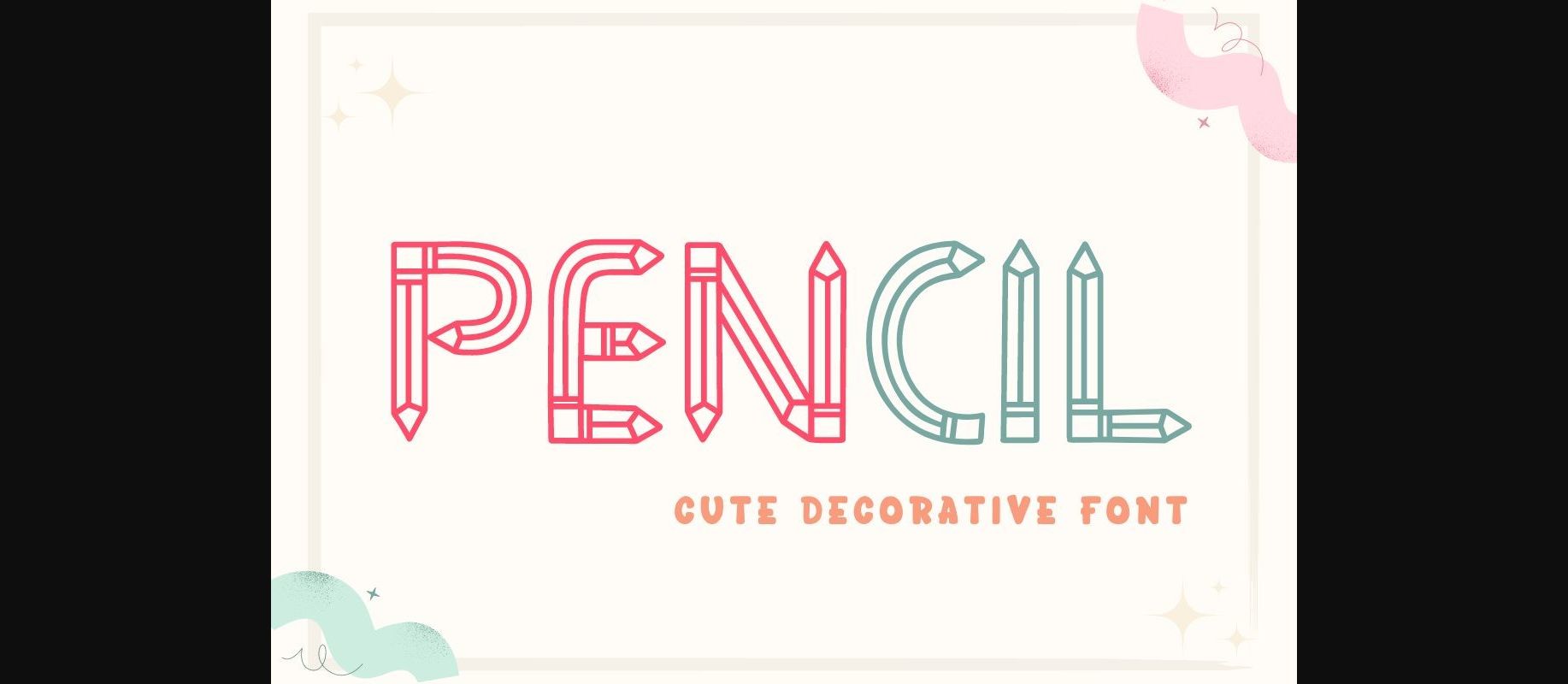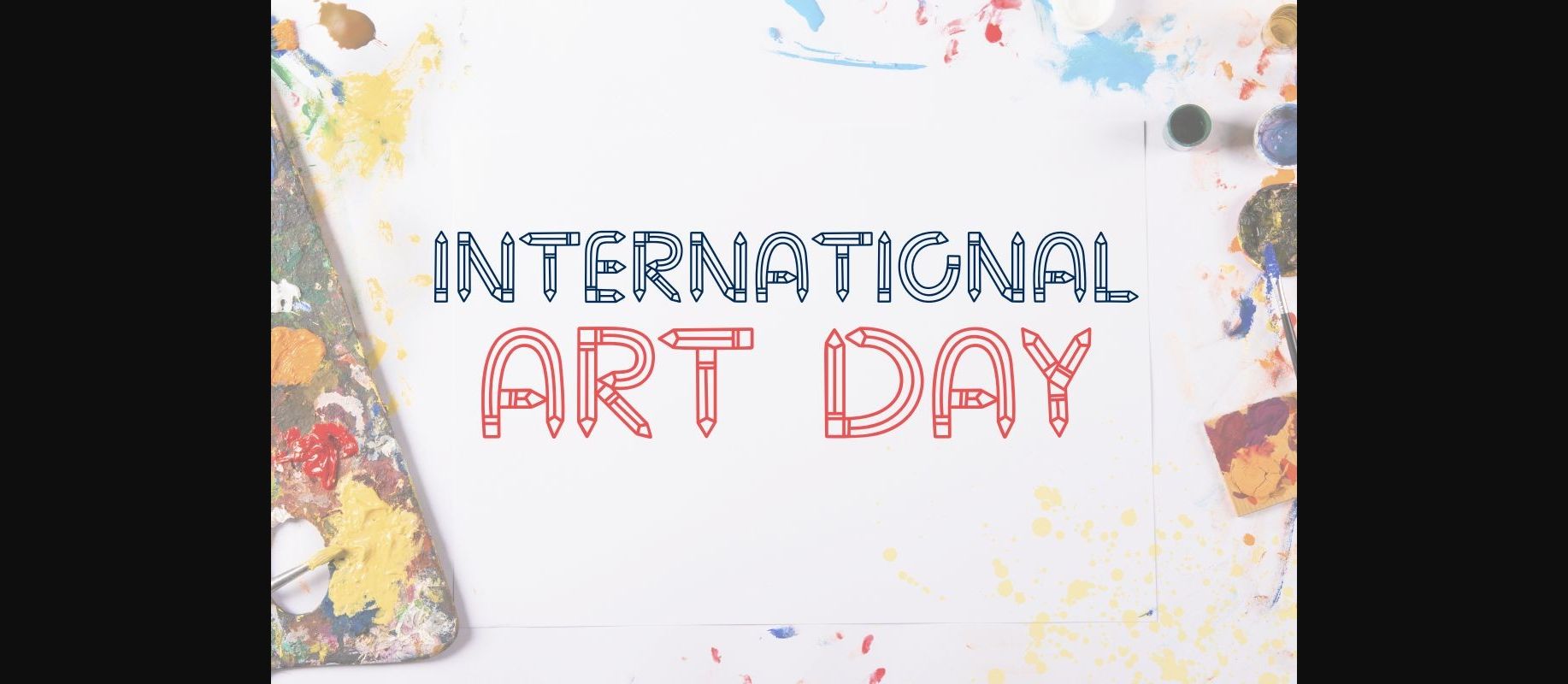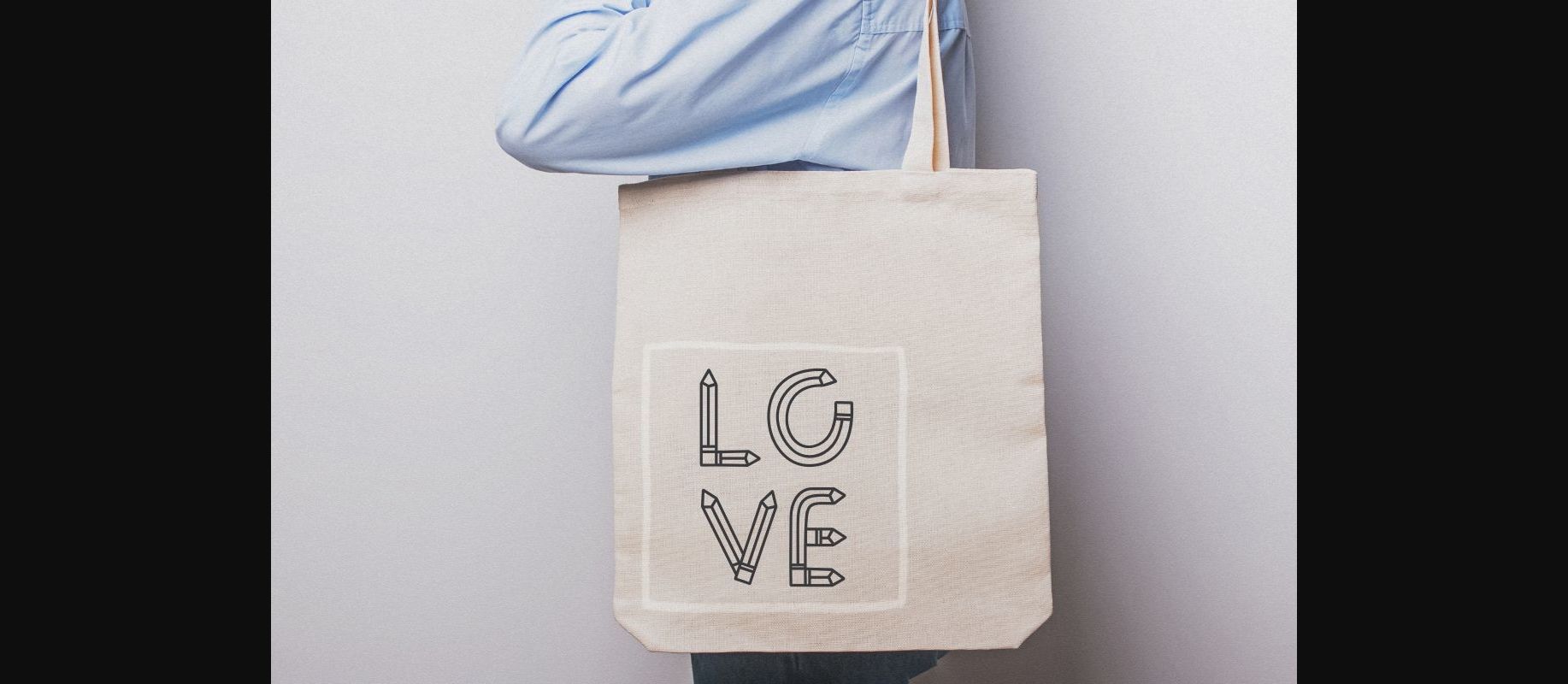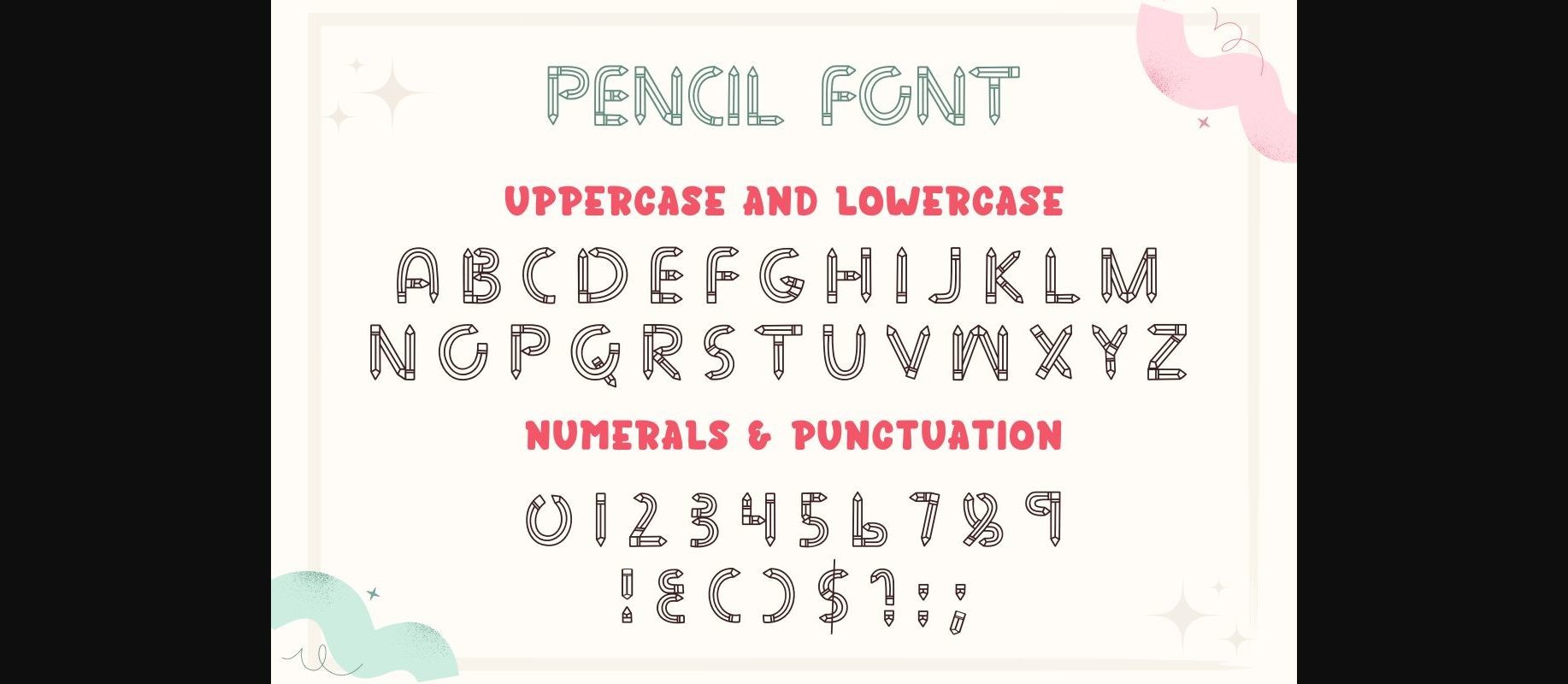
About Pencil Font
Pencil is a cute and quirky decorative font, suitable to create a variety of new designs to match the back to school theme such as banners, content, mugs, cards, shirts, beautiful stationary art, social media posts, and much more!